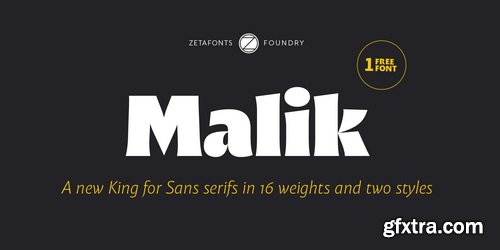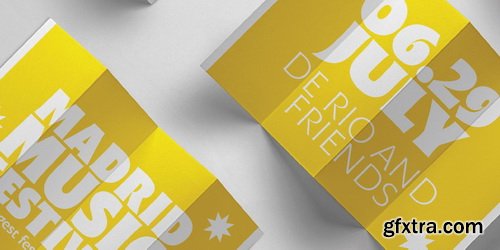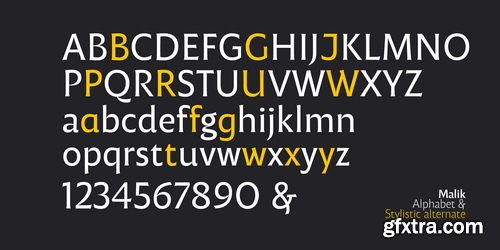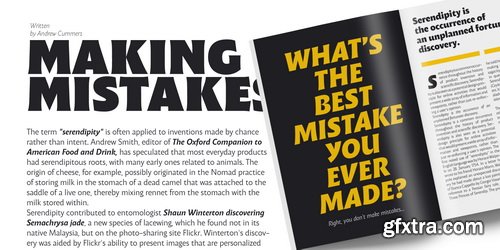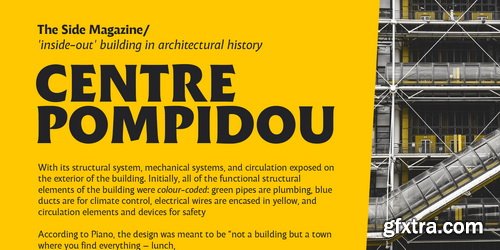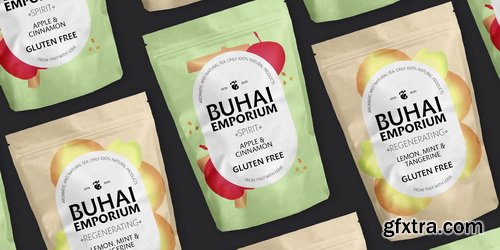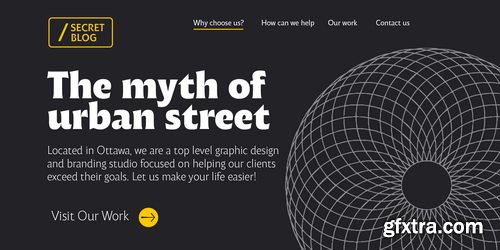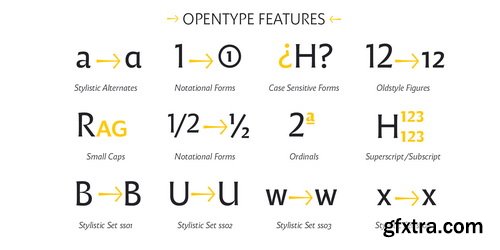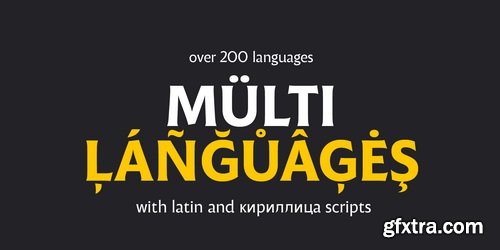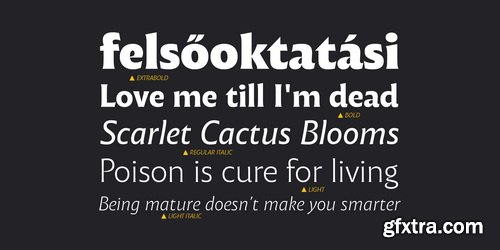
Malik Font Family
Malik also means "owner", and this font surely wants to rule the page. It manages to be extremely readable when used in body text size, but looks surprising and expressive in display use. The inclusion of the Malik Heavy Display weight, with its black texture balanced by deep inktraps, allows for striking logo design. The weight range of the family is extremely wide, including a Book alternative to the Regular weight for fine-tuning readability, a range of light display weights and a solid choice of bold weights for branding, all coming with matching true italics.